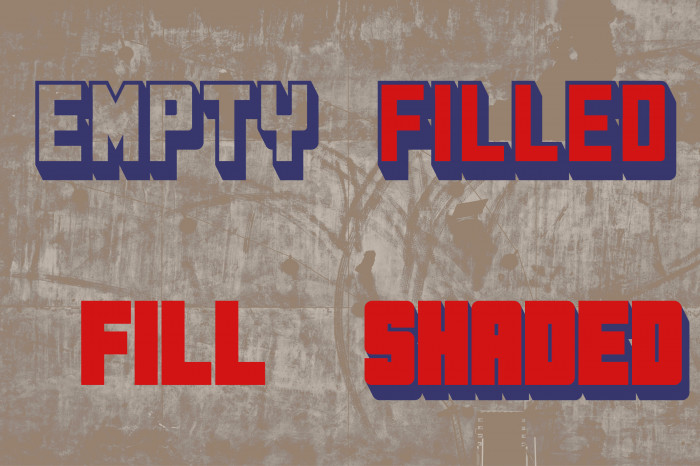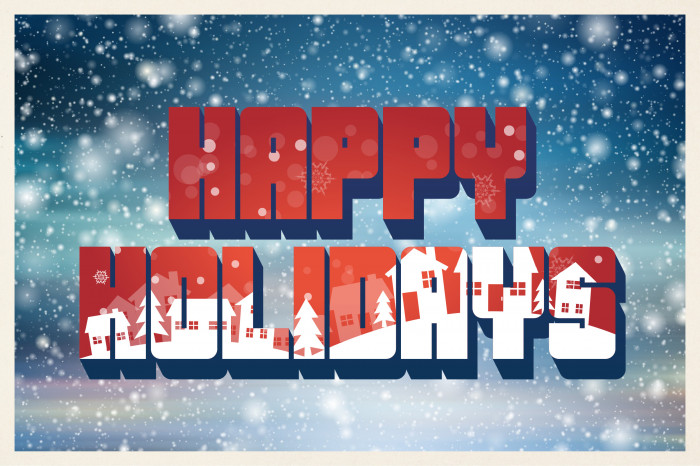
Cartolina r0.9
I started this... more than eleven years ago (!), and changed directions at least a couple of times along the way, so perhaps it would have been better to start from scratch.
Anyway, I thought it would be an appropriate typeface for the holiday season :-)